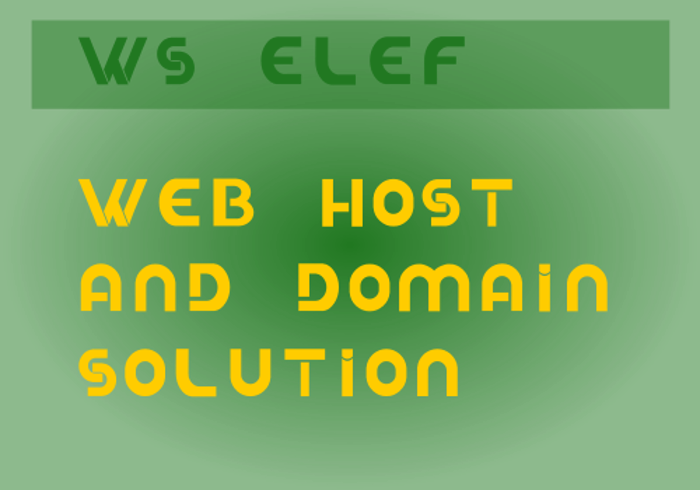
WS Elef Font
Letter a was designed thinking about Elephant and then other letters were added.
For decoration purpose.
Flyer, Print media, School project ..